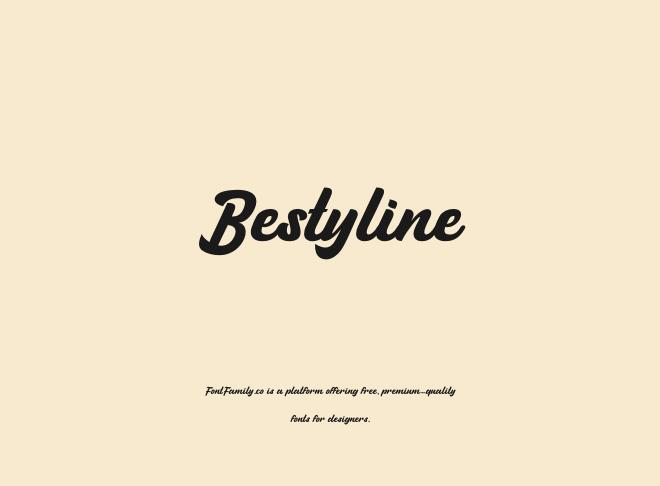
Bestyline Font
Bestyline Font is a modern, handwritten typeface designed by Creative Studio. This playful yet rustic font adds a unique charm to any design with its smooth curves and natural handwriting feel. Bestyline Font is ideal for logos, invitations, stationery, and social media graphics. Its stylish, modern look makes it a great alternative to classic handwritten fonts like Brush Script. Bestyline Font stands out for its versatility and the ability to add a personal touch to any design. It's a great choice for designers looking for a modern, playful, and rustic font that is free for personal use and can make their designs stand out.